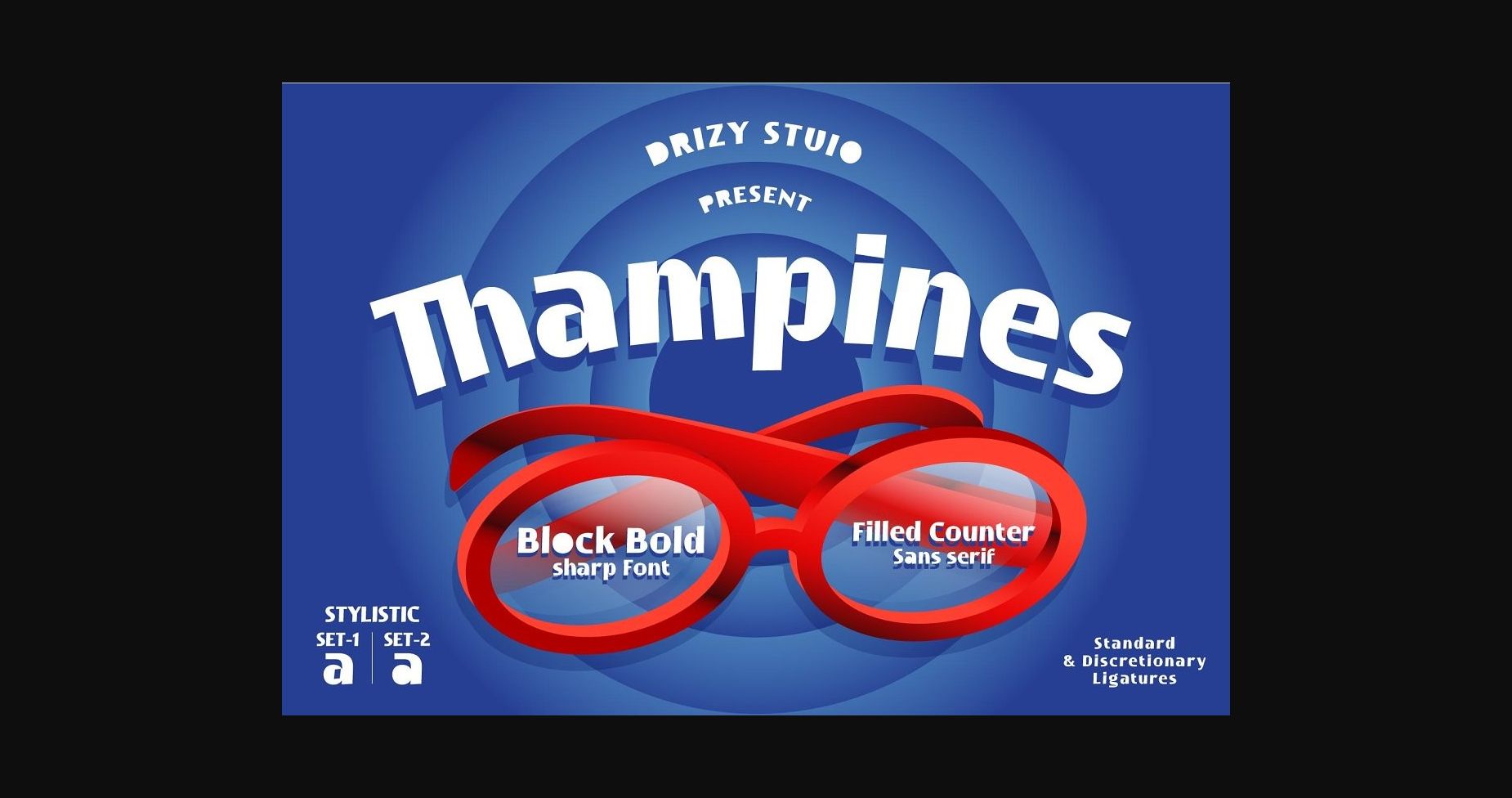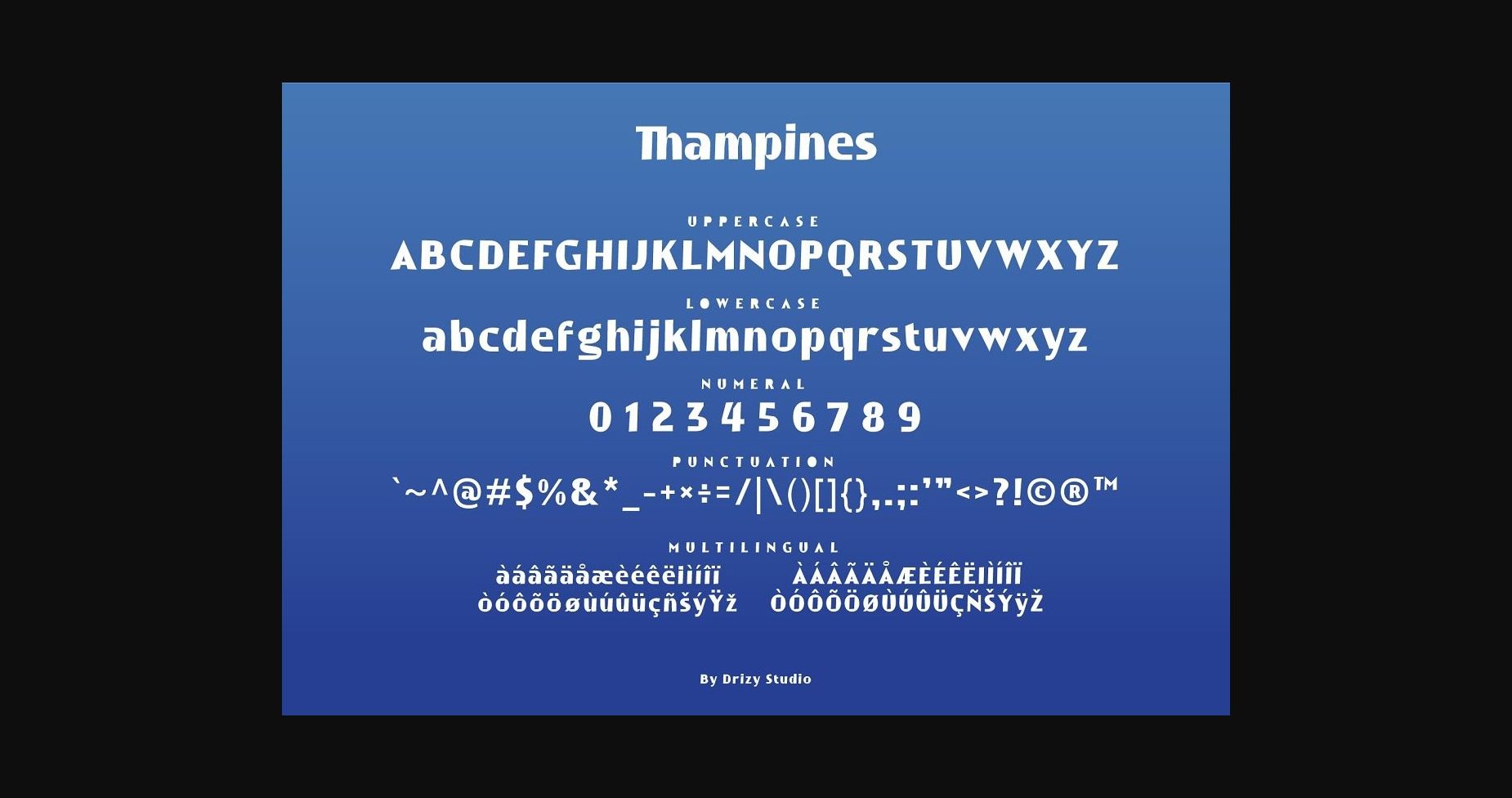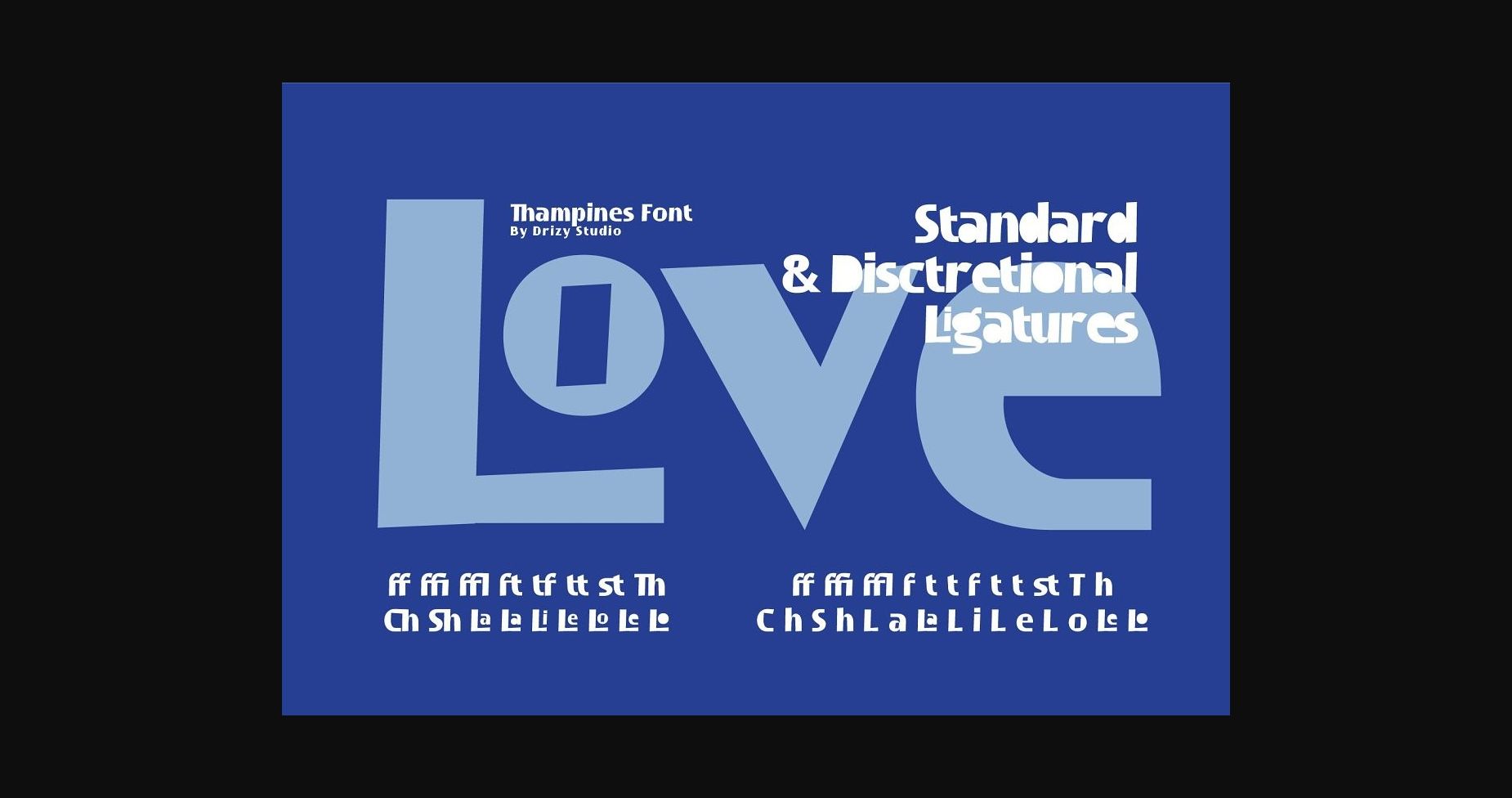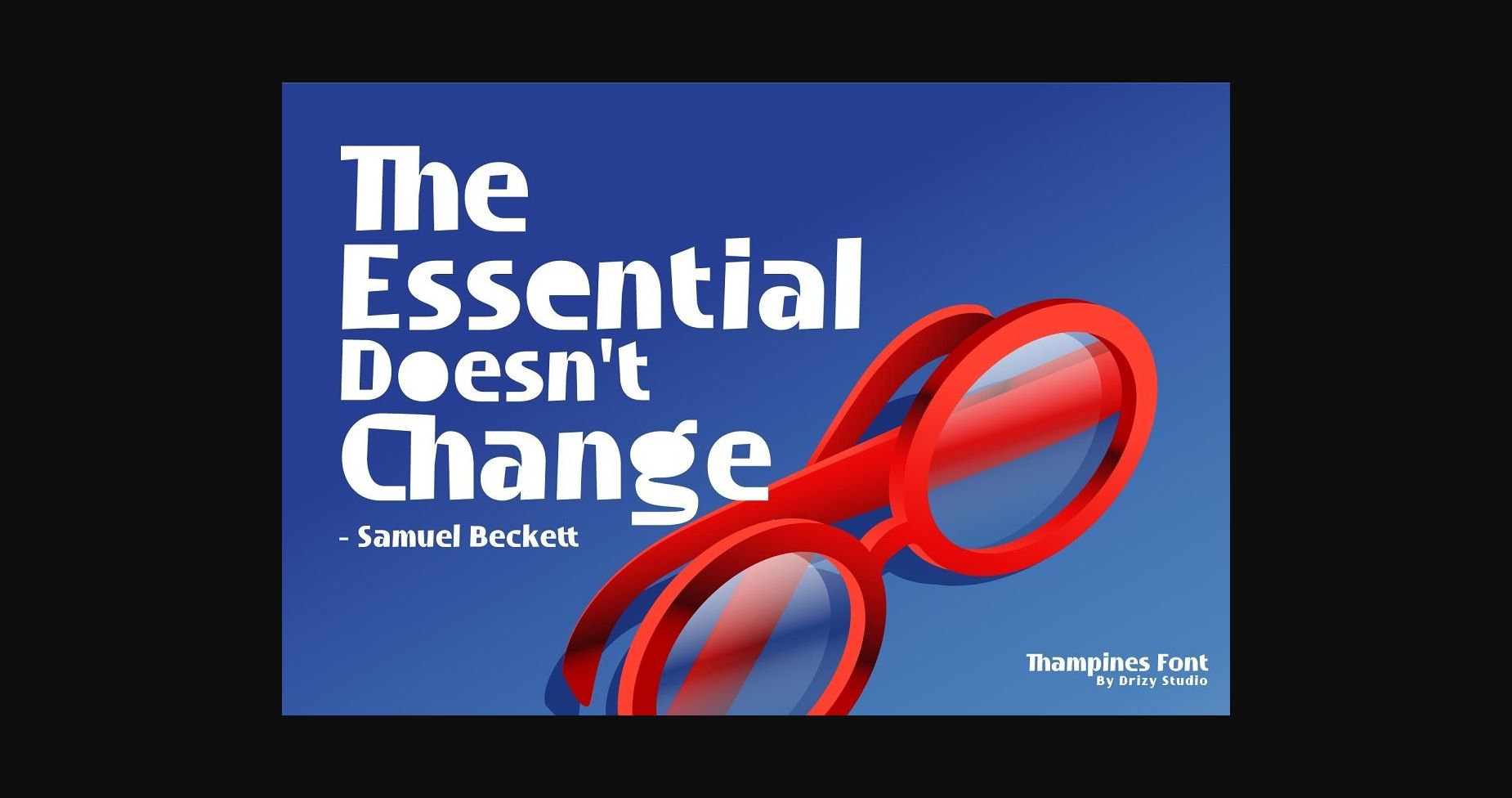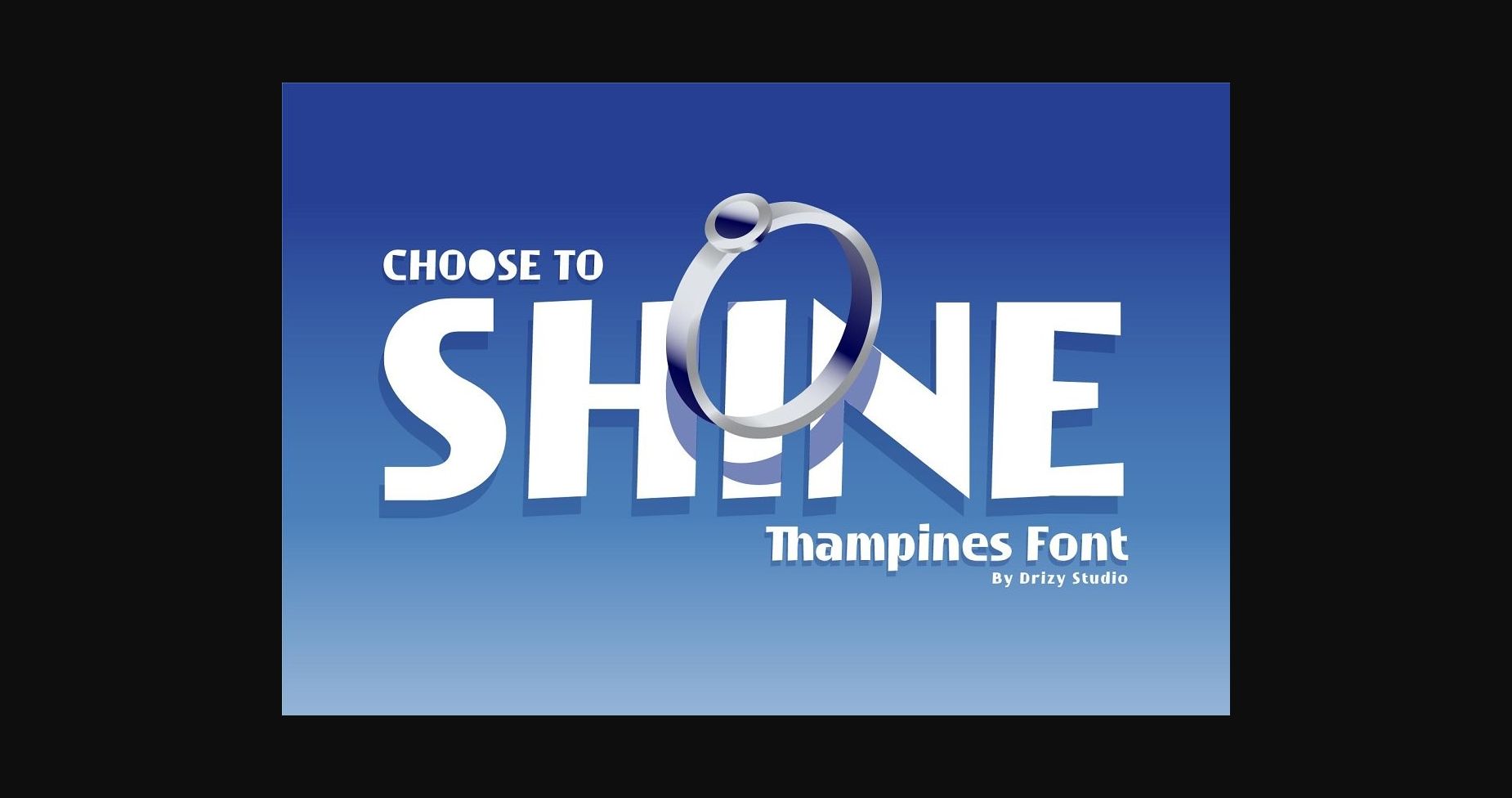
Thampines Font
About Thampines Font
Thampines is a bold and minimalistic sans serif font, perfect for projects that need strong and neat typography! Use it for posters, book covers, magazines, banners, or more.